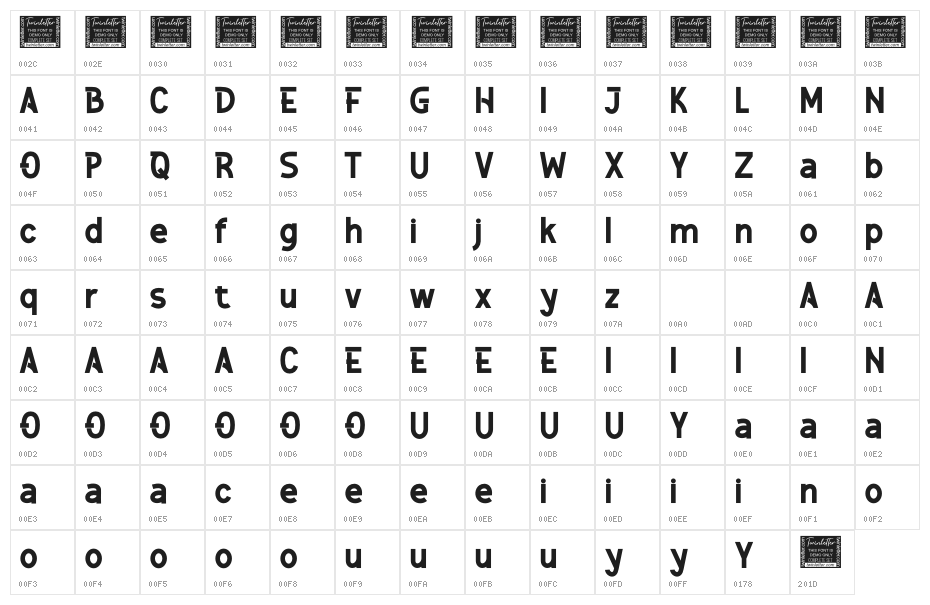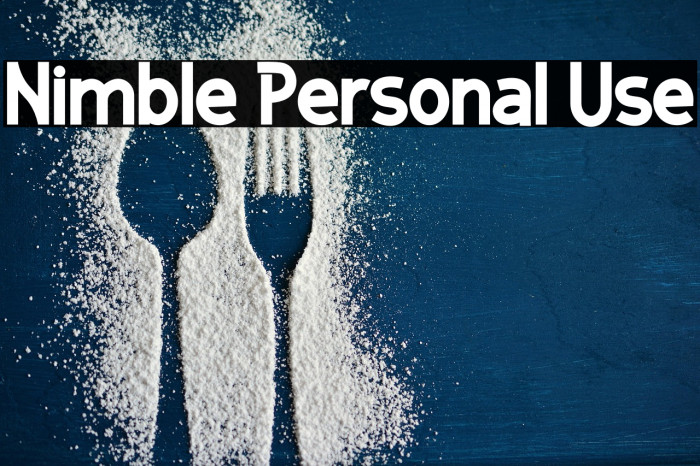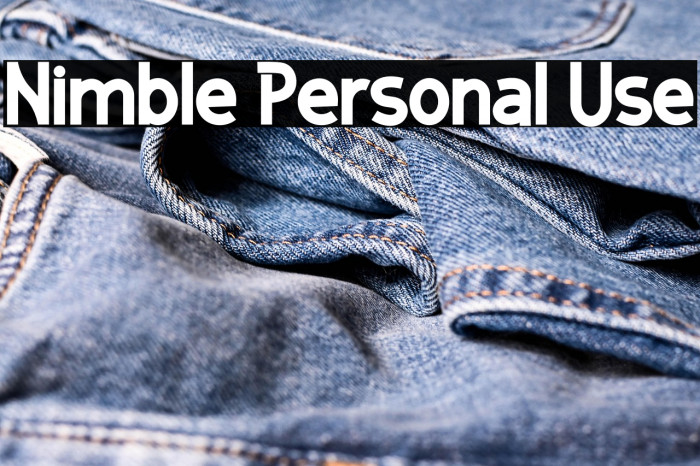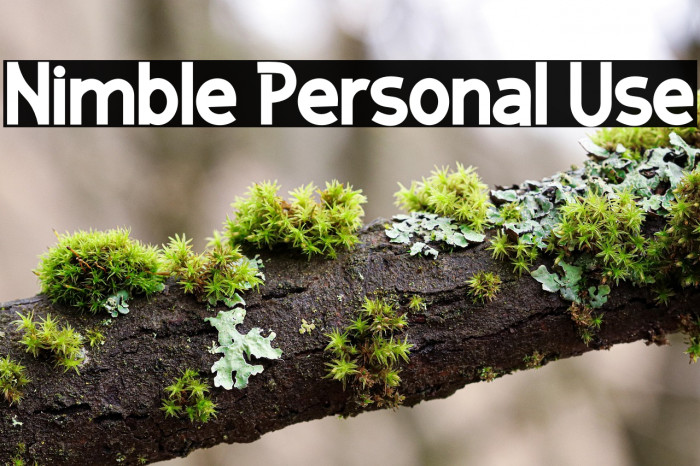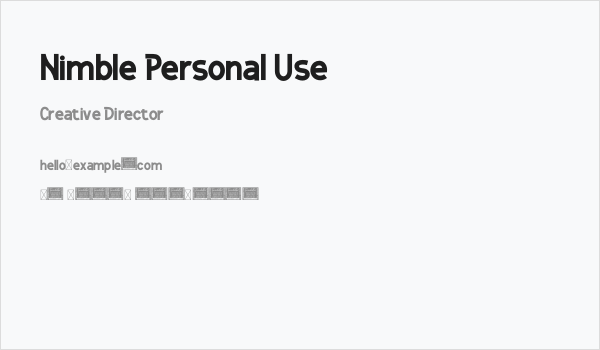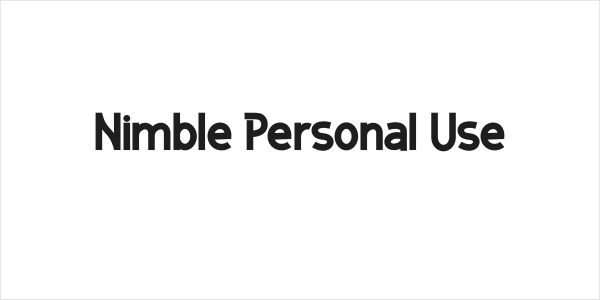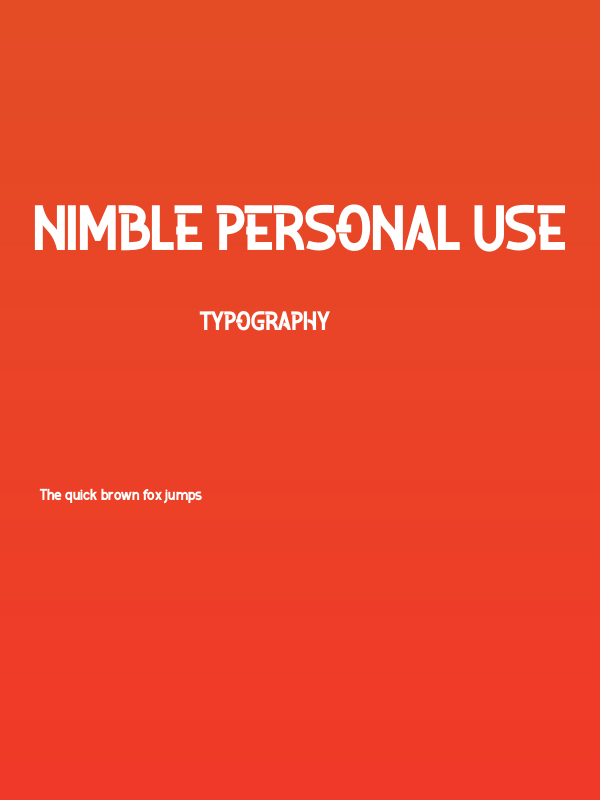
Nimble Personal Use Font
Nimble Personal Use Description
This font features a bold and modern design with a strong geometric influence. The uppercase letters are characterized by sharp angles and clean lines, giving them a striking and assertive appearance. The lowercase letters maintain a consistent style, with rounded edges that add a touch of softness to the overall look. The font's structure is well-balanced, making it suitable for various design applications. The numerals and special characters are crafted to match the boldness of the alphabet, ensuring a cohesive visual experience across all characters.
| Proposed Projects | Ideal for branding, headlines, posters, and modern digital designs. |